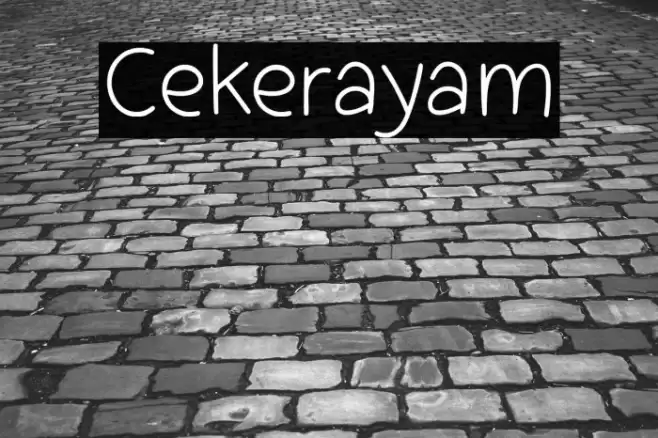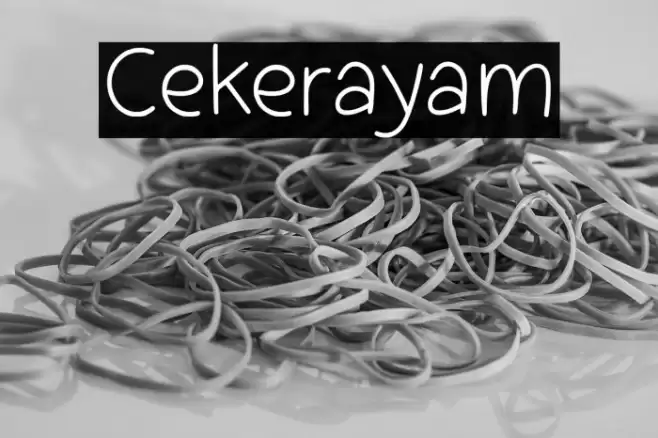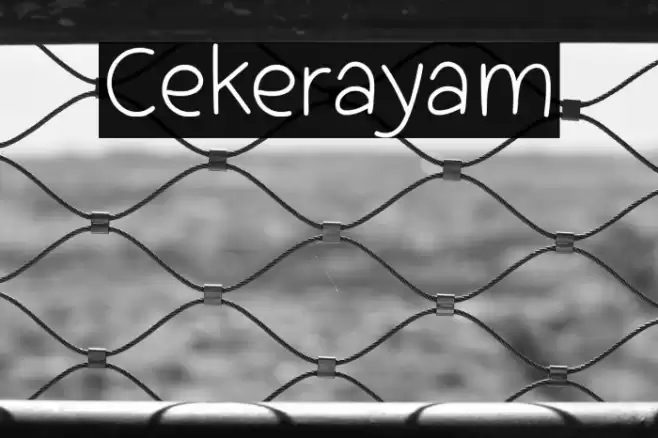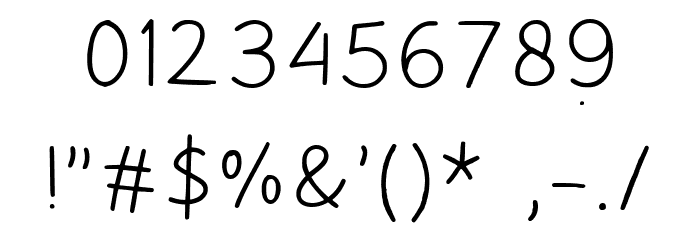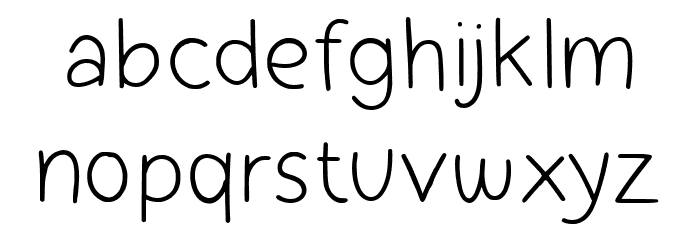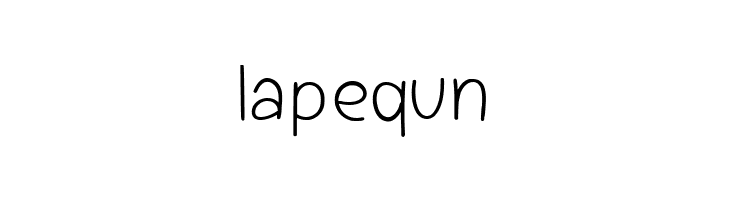
Cekerayam Font
Cekerayam Description
This font features a playful and casual handwritten style, characterized by its rounded and slightly irregular letterforms. The strokes are consistent in width, giving it a uniform appearance, yet the slight variations in each character add a touch of whimsy and personality. The font maintains good legibility with clear distinction between uppercase and lowercase letters. The numerals and special characters are designed to match the overall style, ensuring coherence across all text elements. Its friendly and approachable look makes it suitable for informal and creative projects.
A playful handwritten font with rounded, consistent strokes and a casual feel from Regular fonts.
- Proposed Projects: Ideal for children's books, greeting cards, casual branding, and social media graphics.
- Overall Style: Casual
- Use Case: Headlines, Informal text, Creative projects